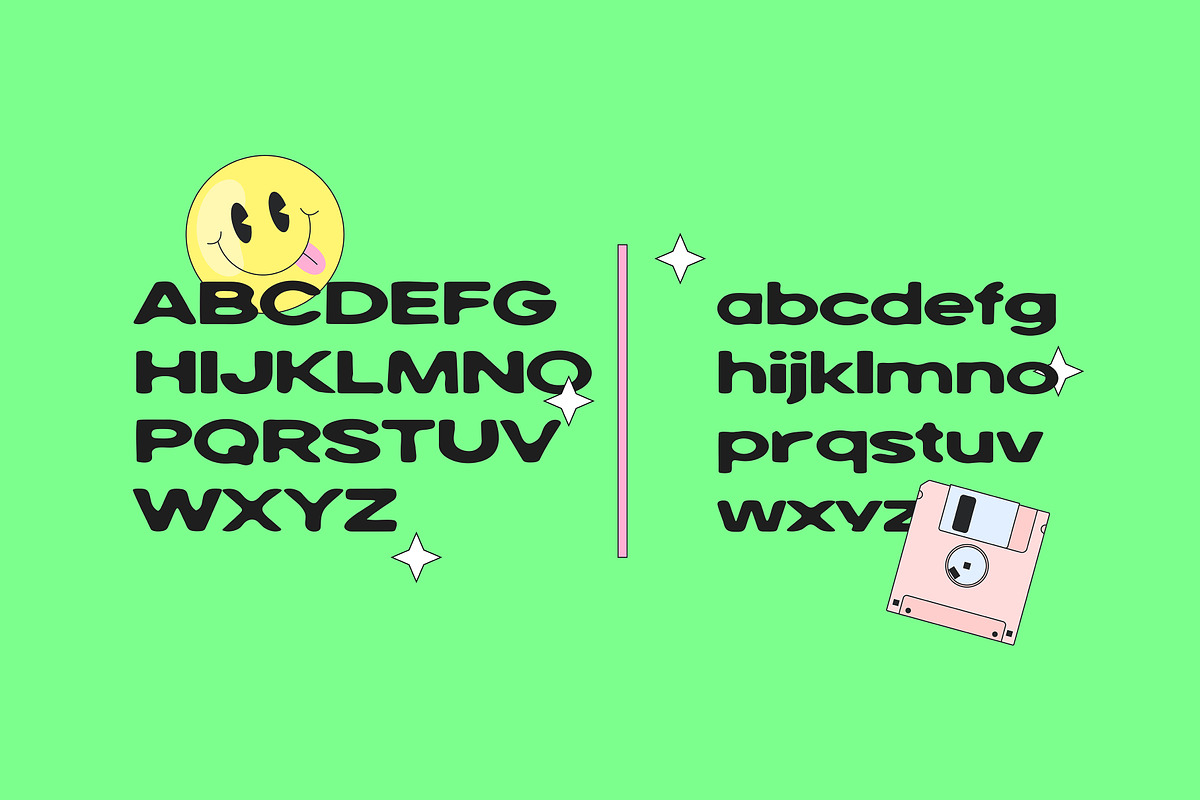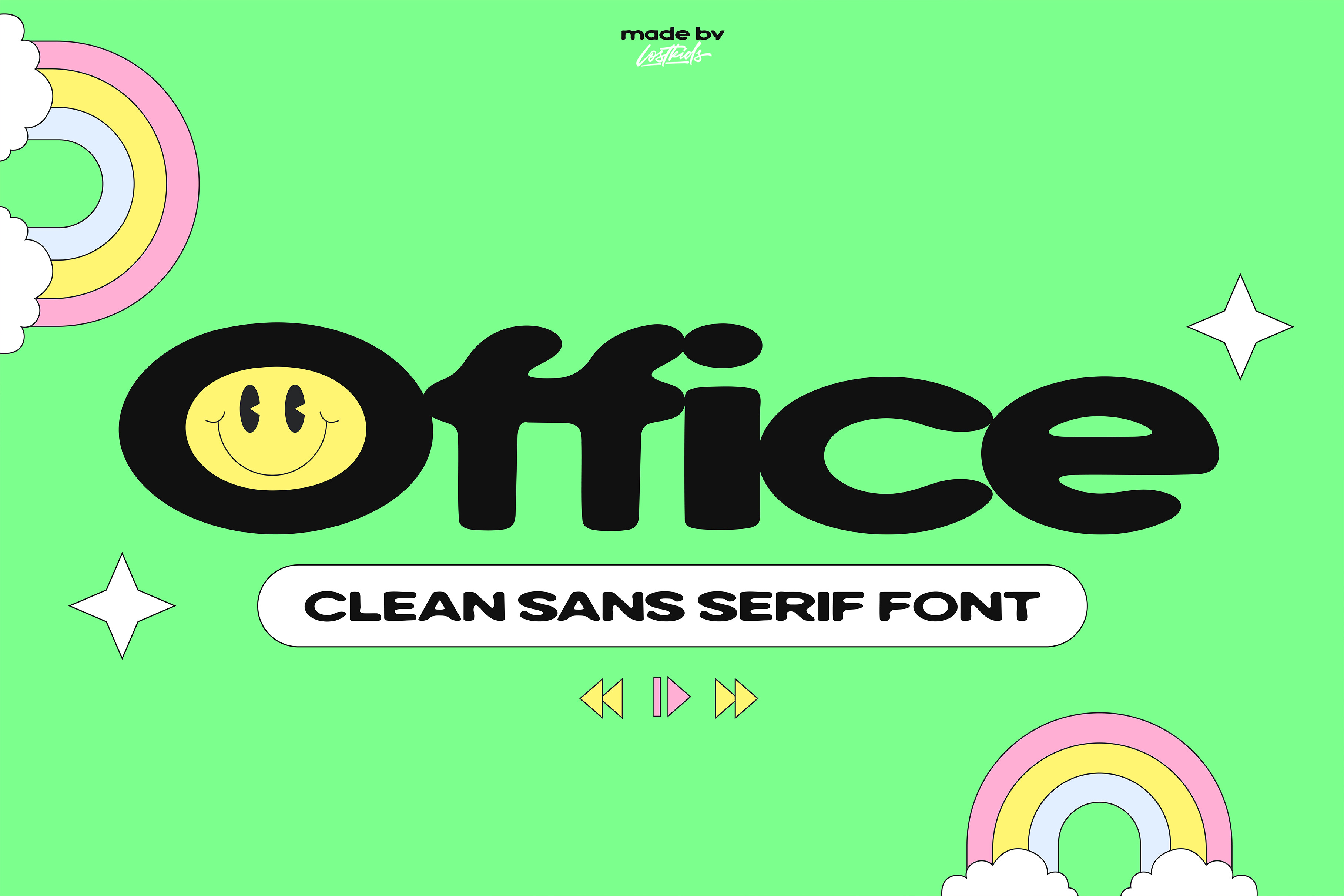
Office - Rounded Sans-Serif Font
Introducing "Office" - The Ultimate Clean Rounded Sans Serif Font for Creatives!
Looking for the perfect blend of modern simplicity and retro charm? "Office" is a bold and clean sans-serif font with a playful rounded design, perfect for brands, packaging, posters, logos, and so much more. Its versatile, minimalist style gives your projects a fresh and approachable look that feels timeless yet trendy.
Why Choose "Office"? Rounded Perfection: Every letter is crafted with smooth, rounded edges for a friendly, inviting vibe. Highly Versatile: Whether you're designing for web, print, or social media, "Office" adapts seamlessly to any medium. Eye-Catching Personality: Make your text pop with a bold style that grabs attention without overwhelming your design. Retro Meets Modern: Inspired by vintage aesthetics with a contemporary twist—ideal for nostalgic yet forward-thinking brands. Features: ✔️ Clean, crisp sans-serif structure ✔️ Perfectly rounded corners for a polished look ✔️ Great readability at all sizes ✔️ Multilingual support for global creatives ✔️ Designed for logos, headers, branding, and more